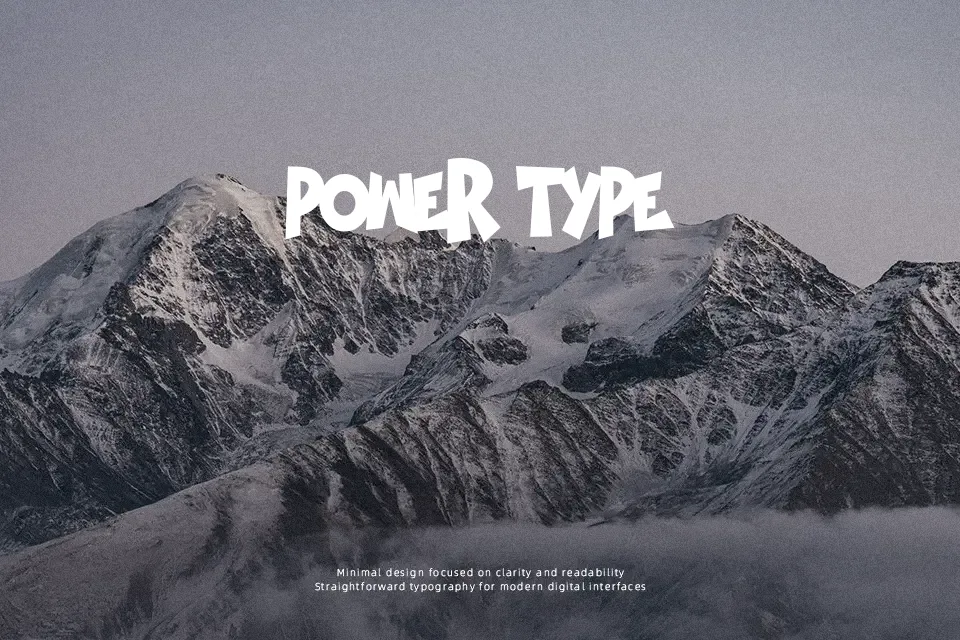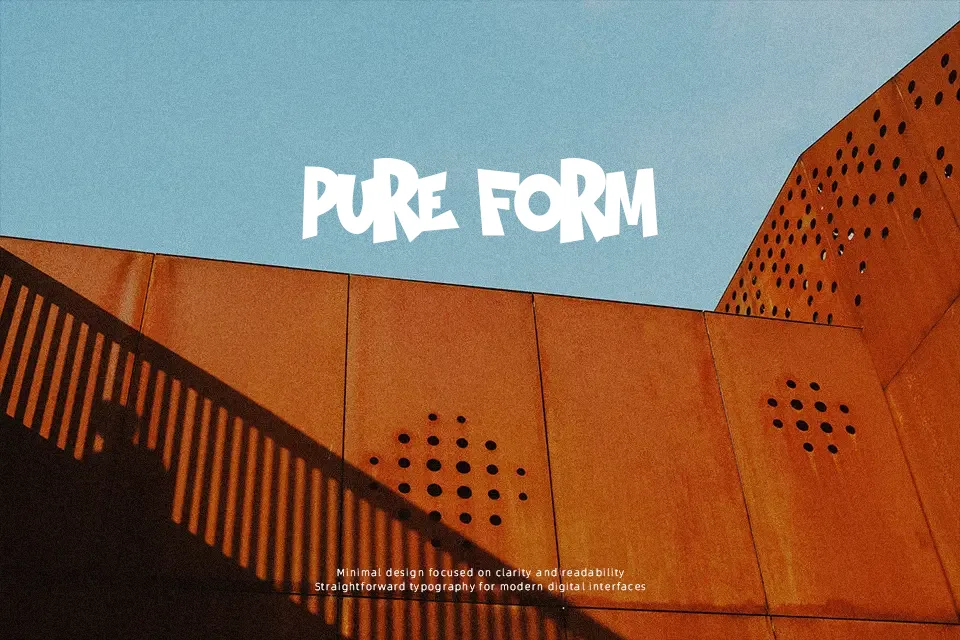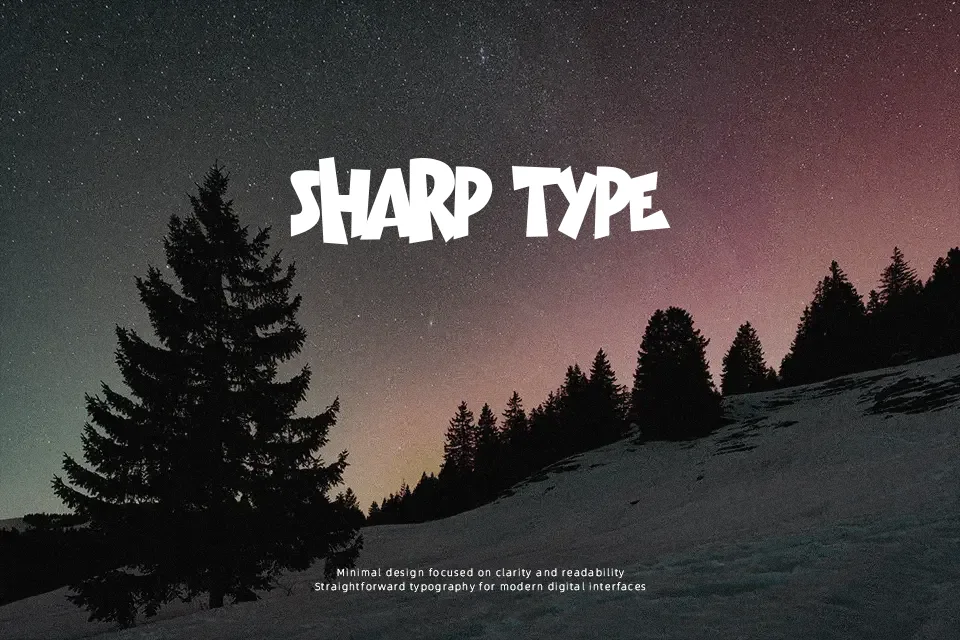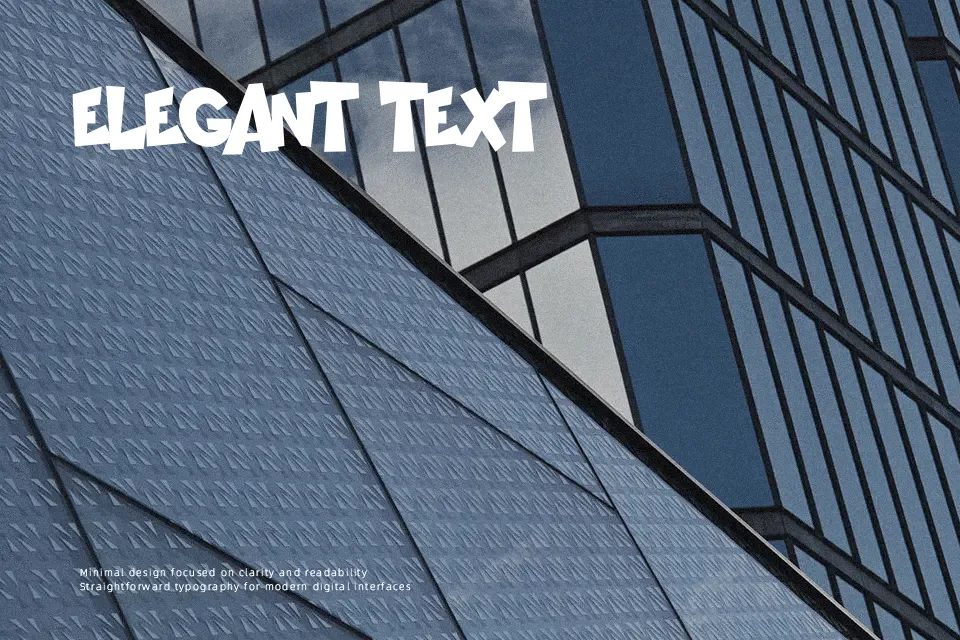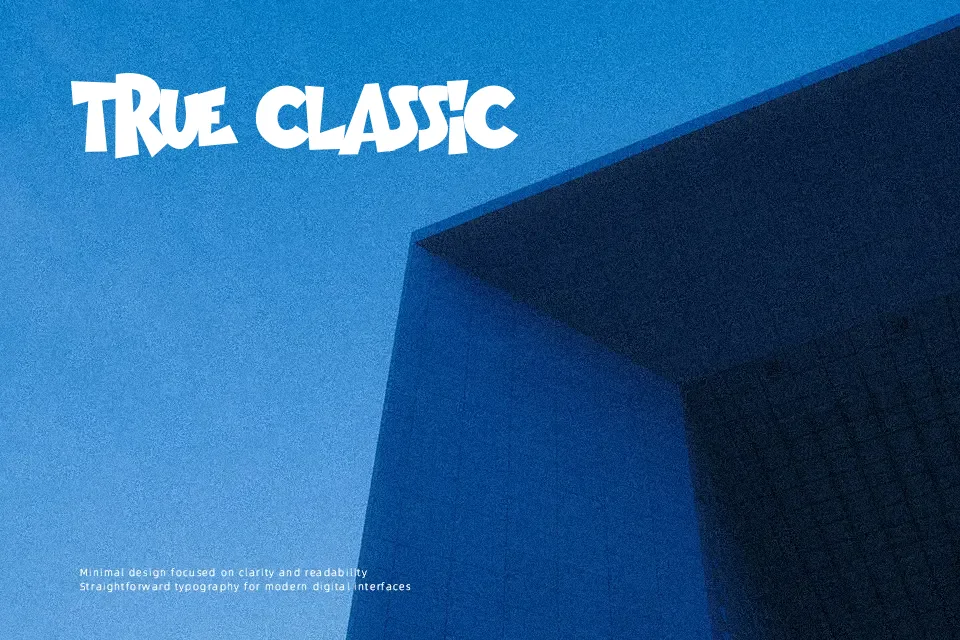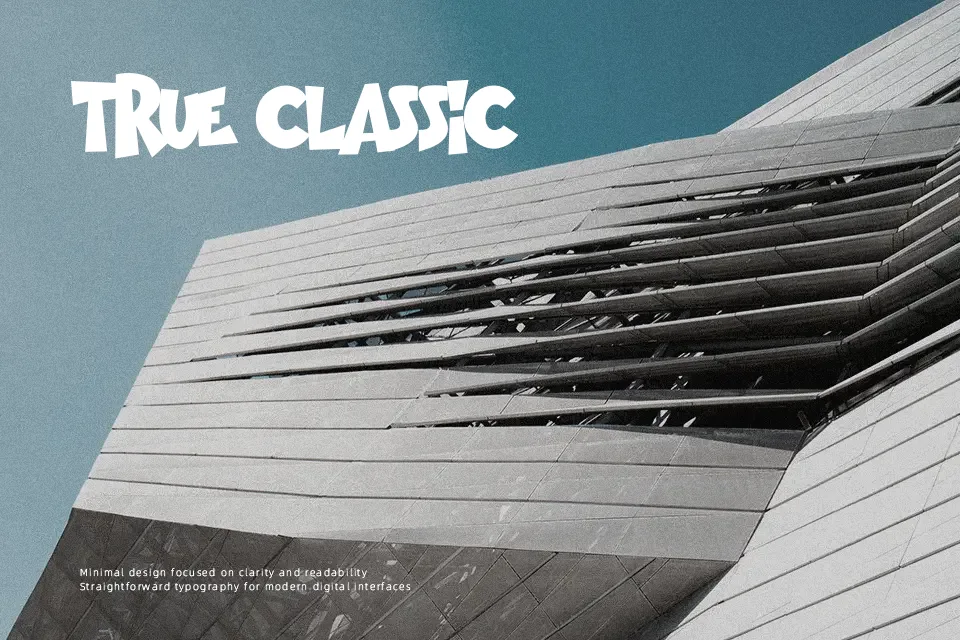
Bromo Font
Bromo is a heavy display face with oversized strokes, tight spacing, and sharply angled shapes that push each letter forward visually. The forms feel hand-drawn and slightly exaggerated, giving it a cartoon-meets-graffiti character that reads more like a graphic element than quiet text. It lends itself to loud headlines on music flyers, gaming thumbnails, sticker designs, and streetwear logos where personality matters more than refinement. In longer sentences or small sizes it quickly becomes overwhelming, so it works best when you treat it as a punchy display accent rather than a workhorse text font.
short,impactful headlines on posters or flyers
streetwear or urban-style logo wordmarks
gaming or music-related thumbnails and cover art
body text or long paragraphs that need easy reading
formal corporate reports or minimalist editorial layouts
interfaces or apps that require small-size legibility
Perfect for branding, gaming, and logo, with a artistic and cartoon style.